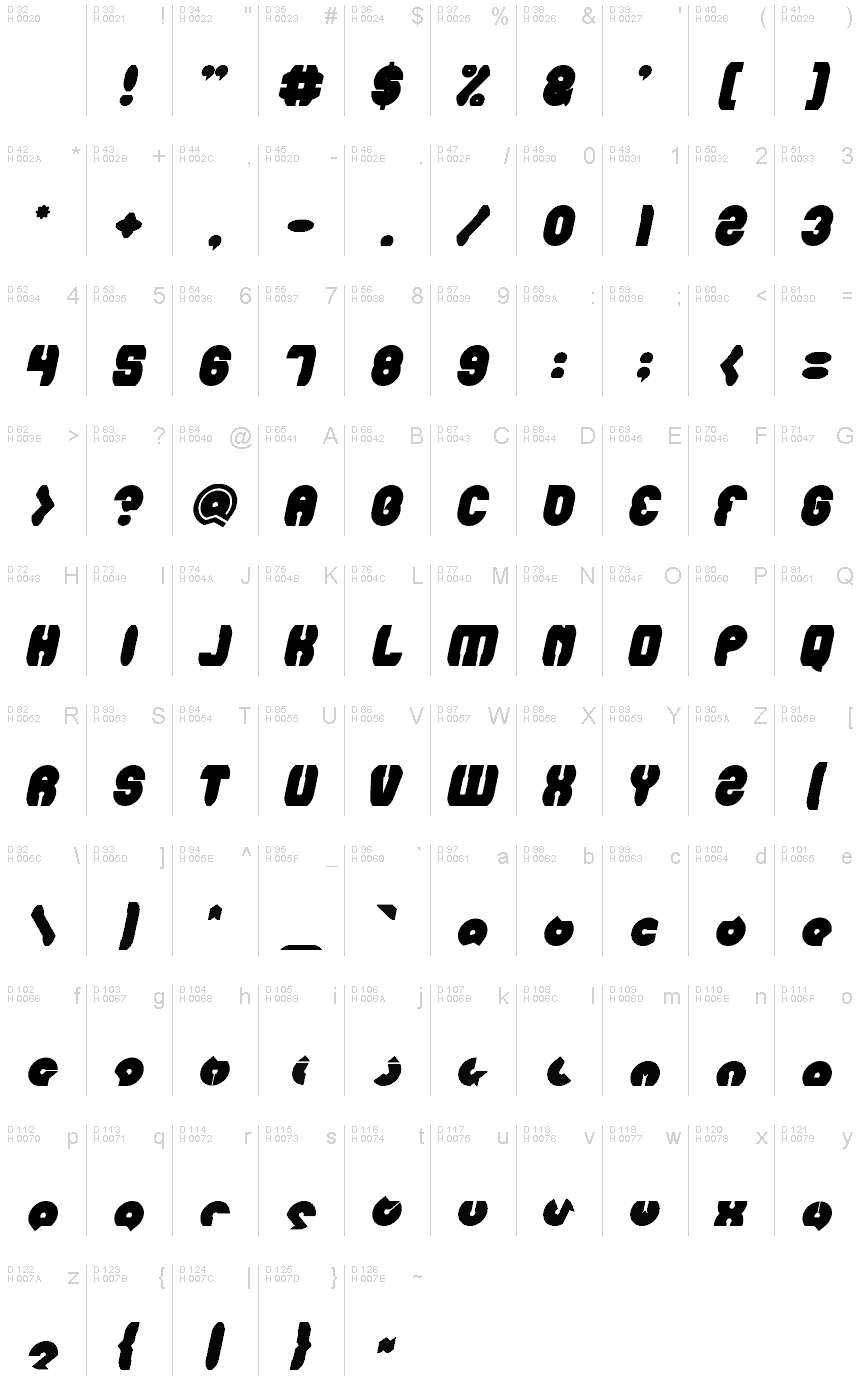
mohr Bold Italic
Mohr Bold Italic, a captivating display font crafted by Weknow, exudes a bold and expressive techno-infused aesthetic. This expanded typeface boasts a striking, groovy appearance, with its dynamic curves and angular forms commanding attention. The font's distinctive personality effortlessly blends modern flair with a retro-inspired charm, making it an exceptional choice for attention-grabbing designs.
Mohr Bold Italic's versatility shines through, offering designers a versatile tool for crafting bold headlines, impactful branding, and visually striking typographic compositions. Its unique character lends itself well to a variety of applications, from editorial layouts and packaging design to digital interfaces and advertising campaigns, making it a valuable asset in the creative professional's toolkit.